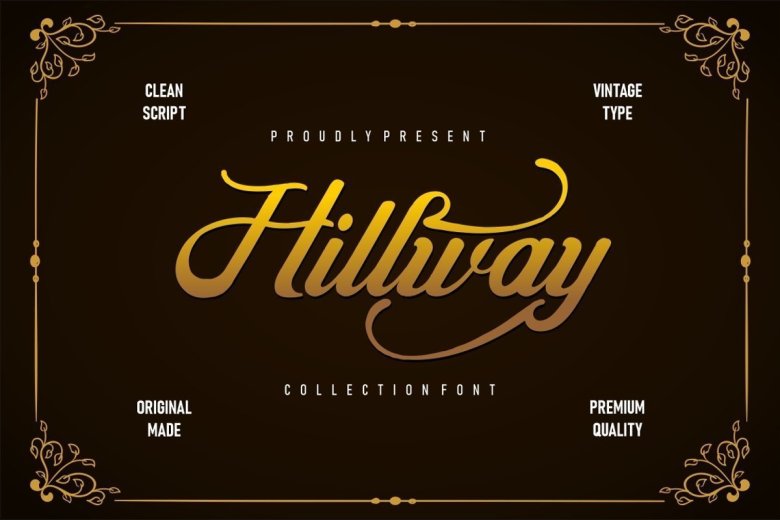
Hillway Font
Introducing Hillway Font– A Vintage Script. This font is perfect for crafters, designer and all creative people. This font is suitable for crafting, svg designs, logotype creation, lettering compositions, wedding invitations, fashion projects, book design cover, magazines typography, cards, packaging’s, posters, label, apparel, event, quotes, merchandise, social media, branding and more.